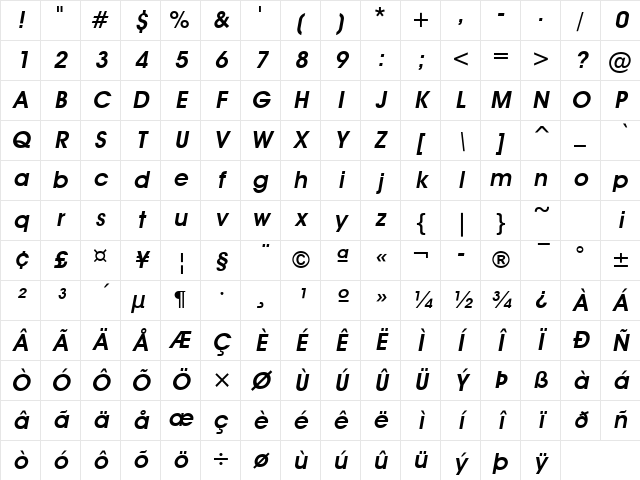
Advantage Bold Italic Free Font
Advantage Bold Italic
Design Context for Advantage
Advantage is a composed and adaptable typeface that performs quietly and consistently across a wide range of design contexts. The slanted form adds forward momentum and visual energy. Its bold stroke weight gives it real presence on the page.
Pro Tip: Use Advantage for emphasis, pull quotes, and subheadings where its slanted energy can add rhythm to the layout.